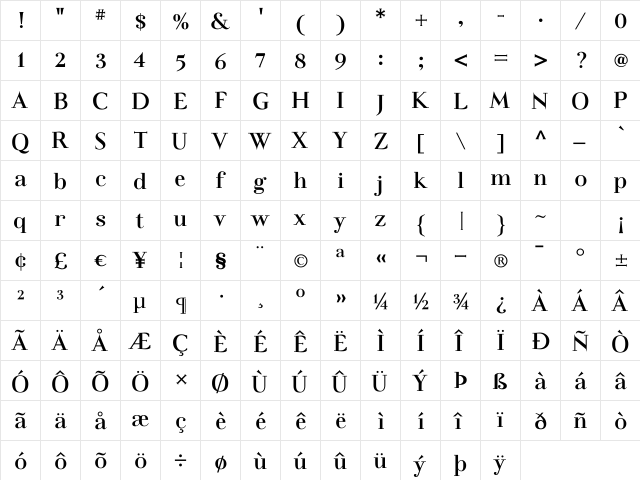
Felina SerifBold Regular
Design Context for Felina SerifBold Typeface
Felina SerifBold carries the refined structure of traditional serif typography, with bracketed terminals and considered proportions that communicate credibility and craft. Its bold stroke weight gives it real presence on the page.